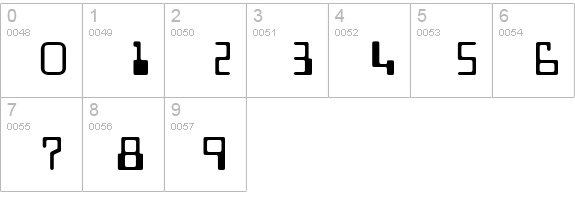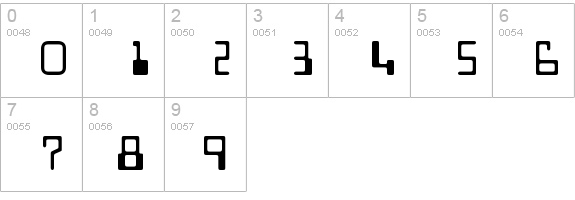
Desoto Font Details
Desoto font is a versatile and modern typeface that effortlessly combines elegance with a touch of playfulness. Its sleek lines and unique letterforms make it perfect for a wide range of design projects, from branding to editorial design. The Desoto font is sure to make your text stand out and leave a lasting impression on your audience. Best of all, Desoto font is completely free to download at FontsMarket.com. This means you can enjoy the beauty and sophistication of this font without any cost. So why wait? Download Desoto font today and take your designs to the next level!